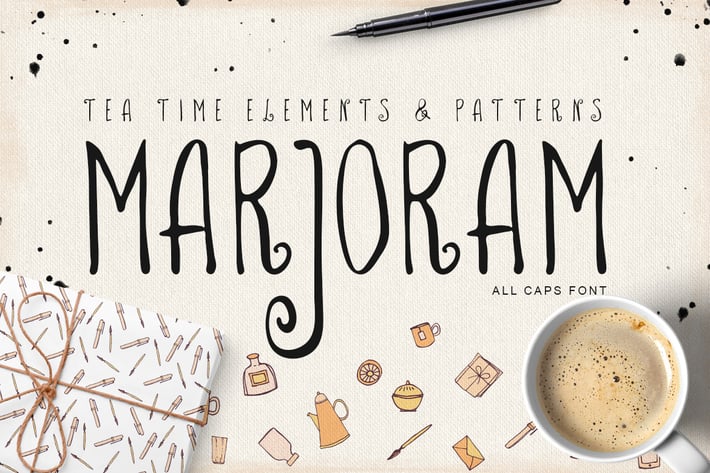
Marjoram Font
Marjoram - font and eps, png illustrations. Ideal for invitations, logos, branding, blogs, handmade craft items, scrap booking, printed paper items and more.